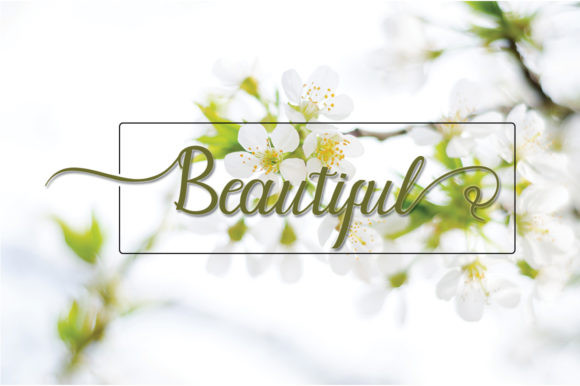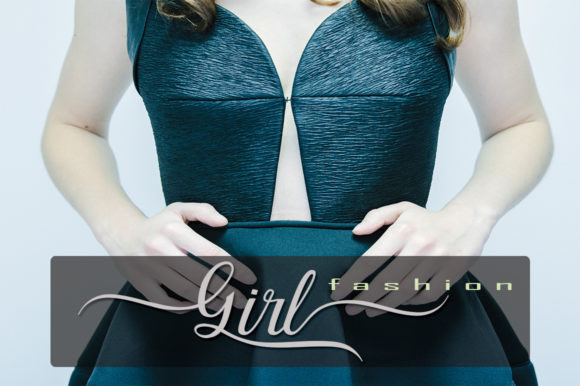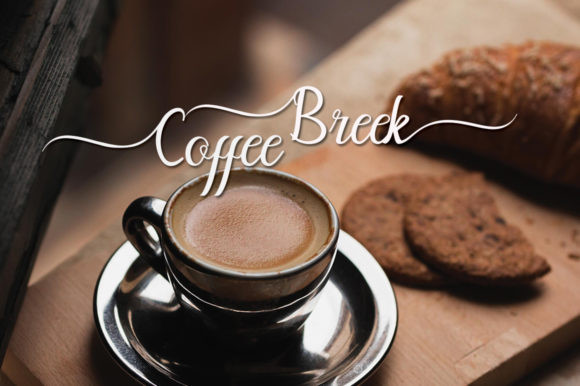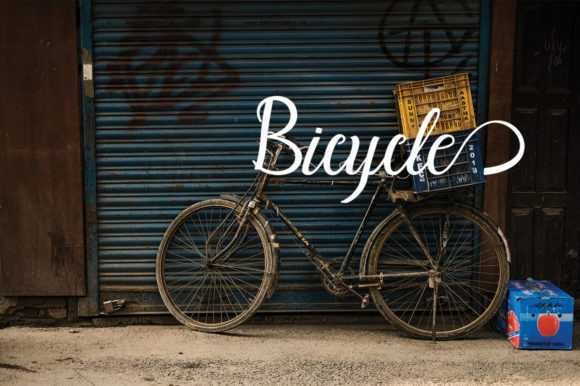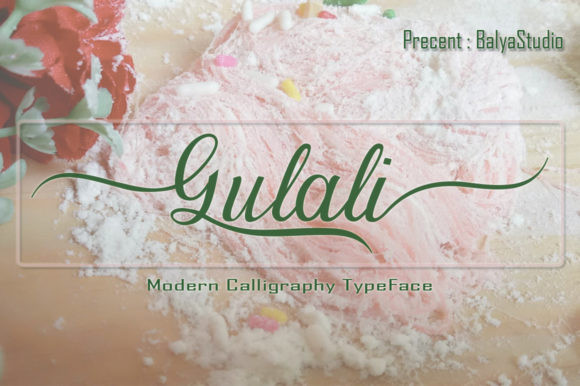
Gulali Font
Gulali is a stunning, elegant and delicate handwritten font with a contemporary feel. It will effortlessly turn any design project into a stand out!